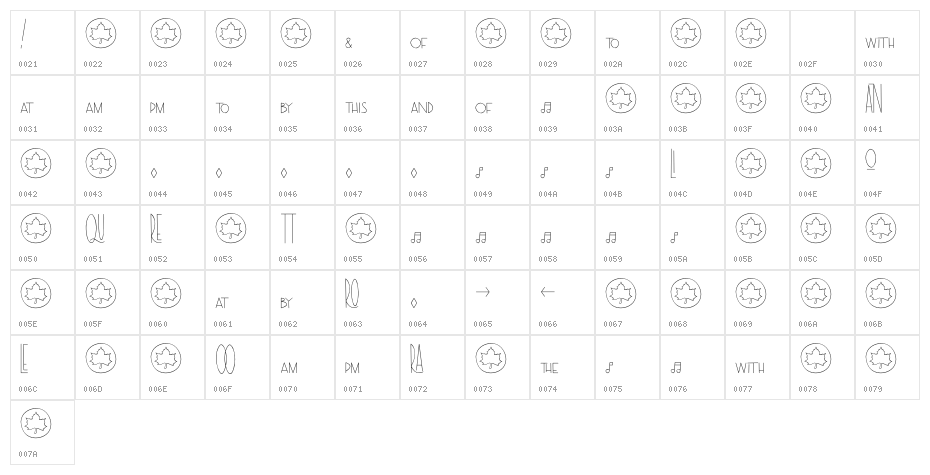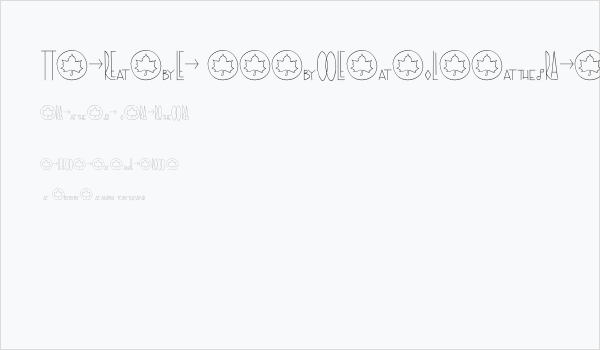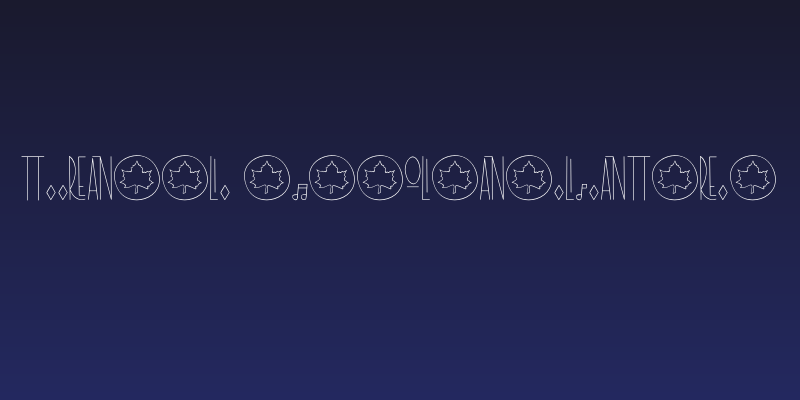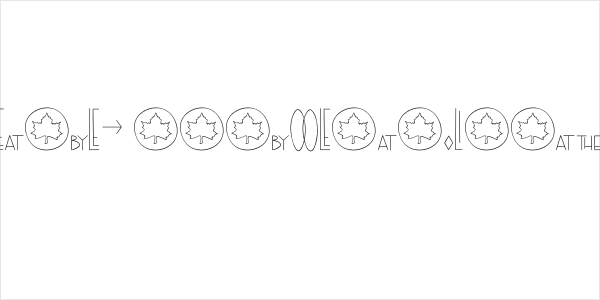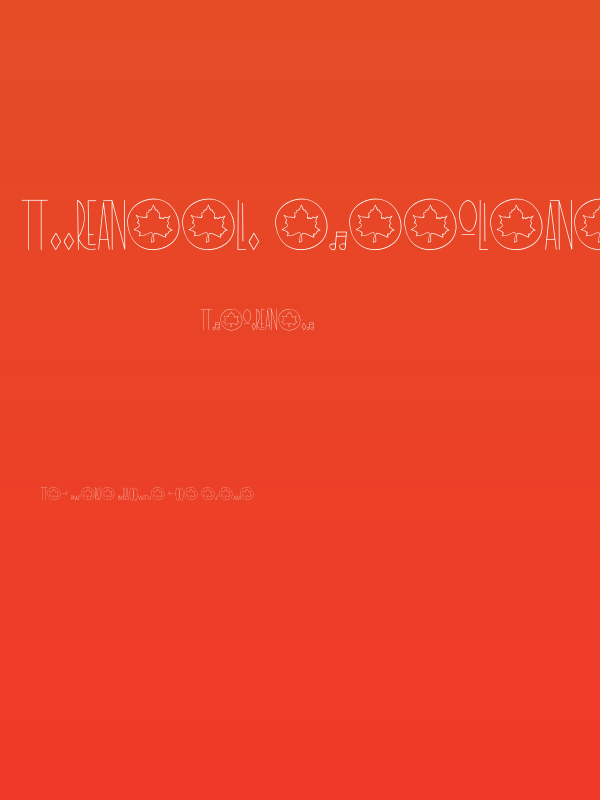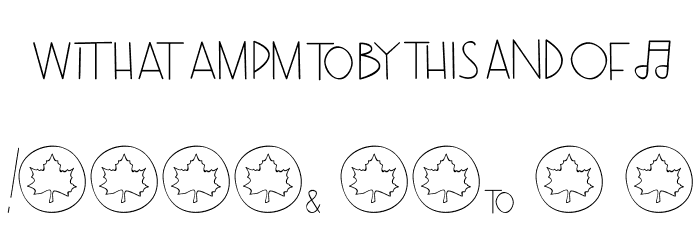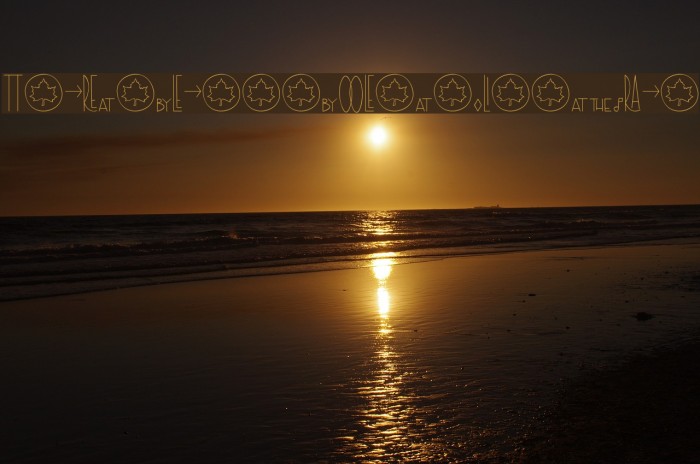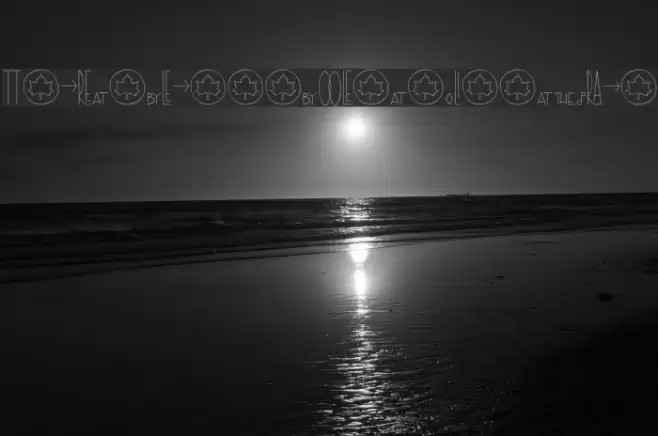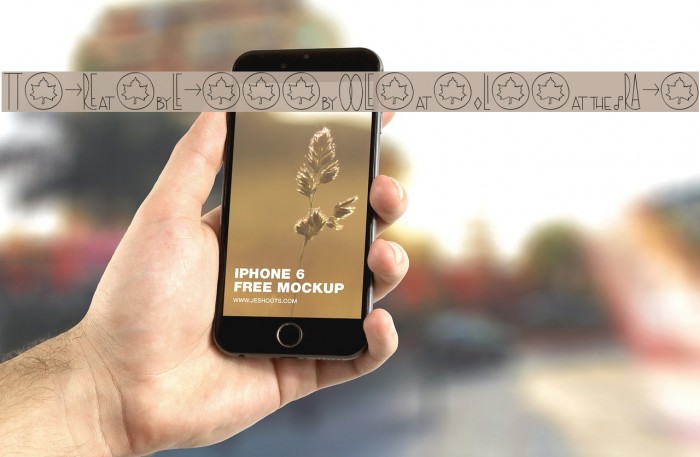
TheRamble-SymbolsandLigatures Font
TheRamble-SymbolsandLigatures Description
This font is a decorative and playful typeface that incorporates unique symbols and ligatures, including musical notes and maple leaf icons. The characters are elongated and slender, with a whimsical touch that adds a sense of fun and creativity. The font features a mix of uppercase and lowercase letters, along with various special characters that enhance its versatility. The overall design is modern and artistic, making it suitable for projects that require a distinctive and eye-catching appearance. The inclusion of symbols and ligatures provides additional opportunities for creative expression.
| Use Case | Logos, Headlines, Artistic projects |
| Proposed Projects | Ideal for creative projects such as greeting cards, posters, music-themed designs, and branding materials that require a unique and artistic touch. |